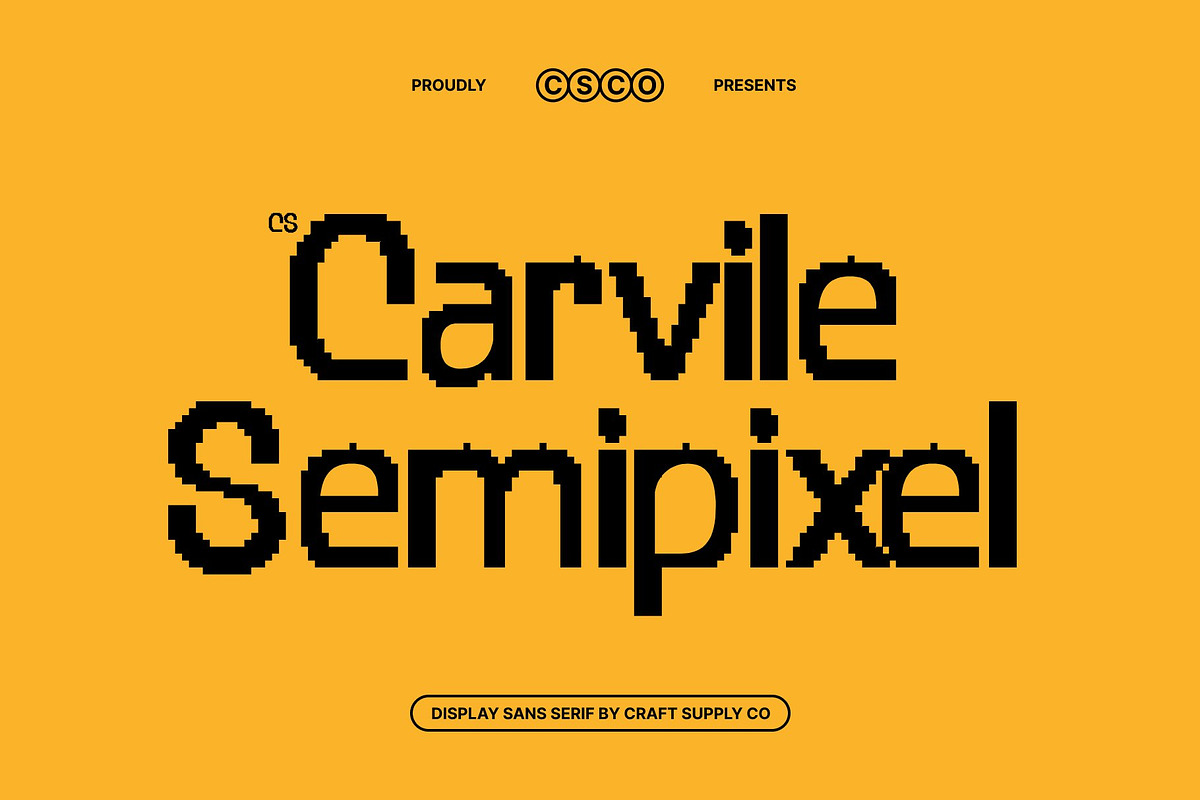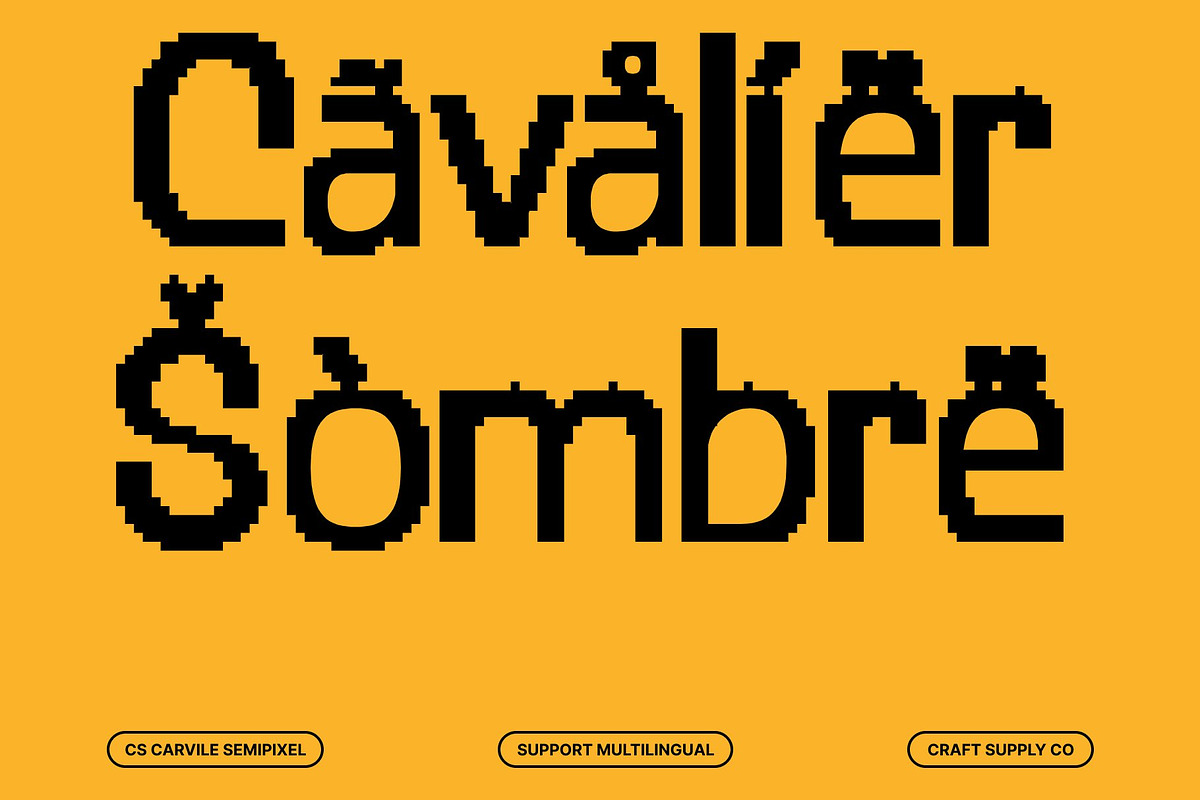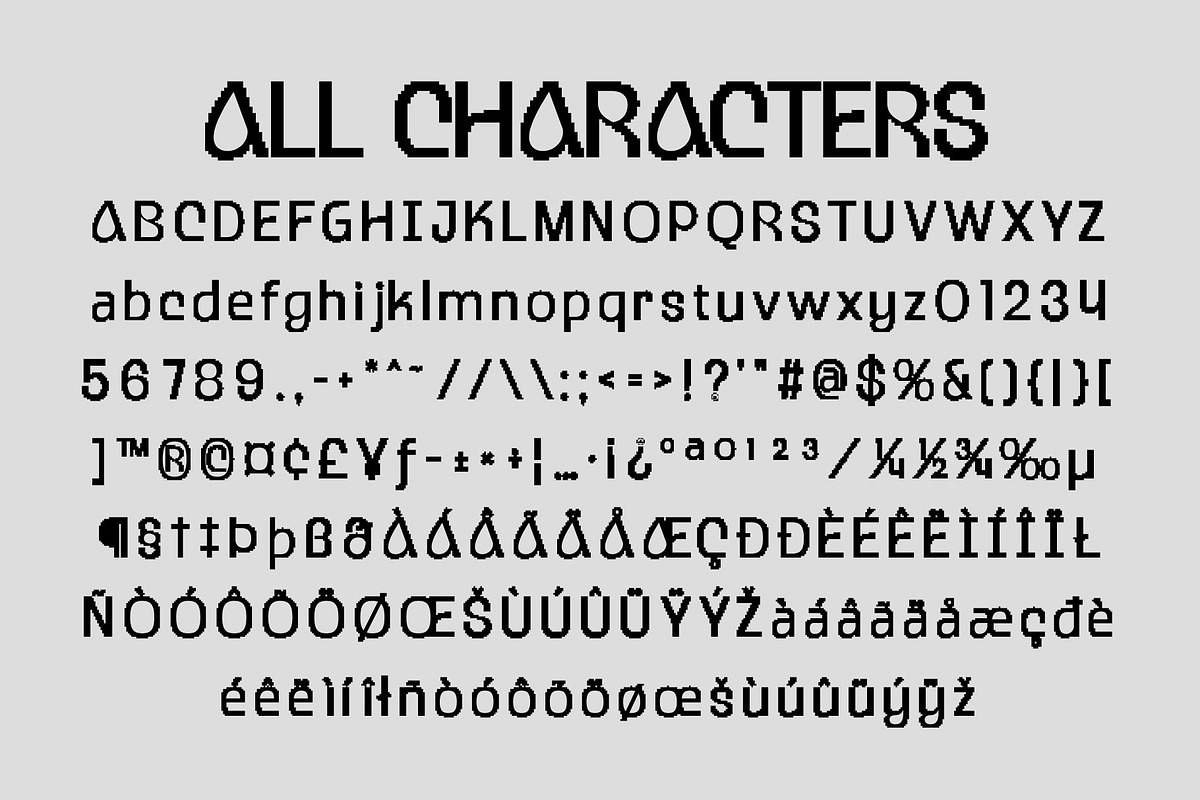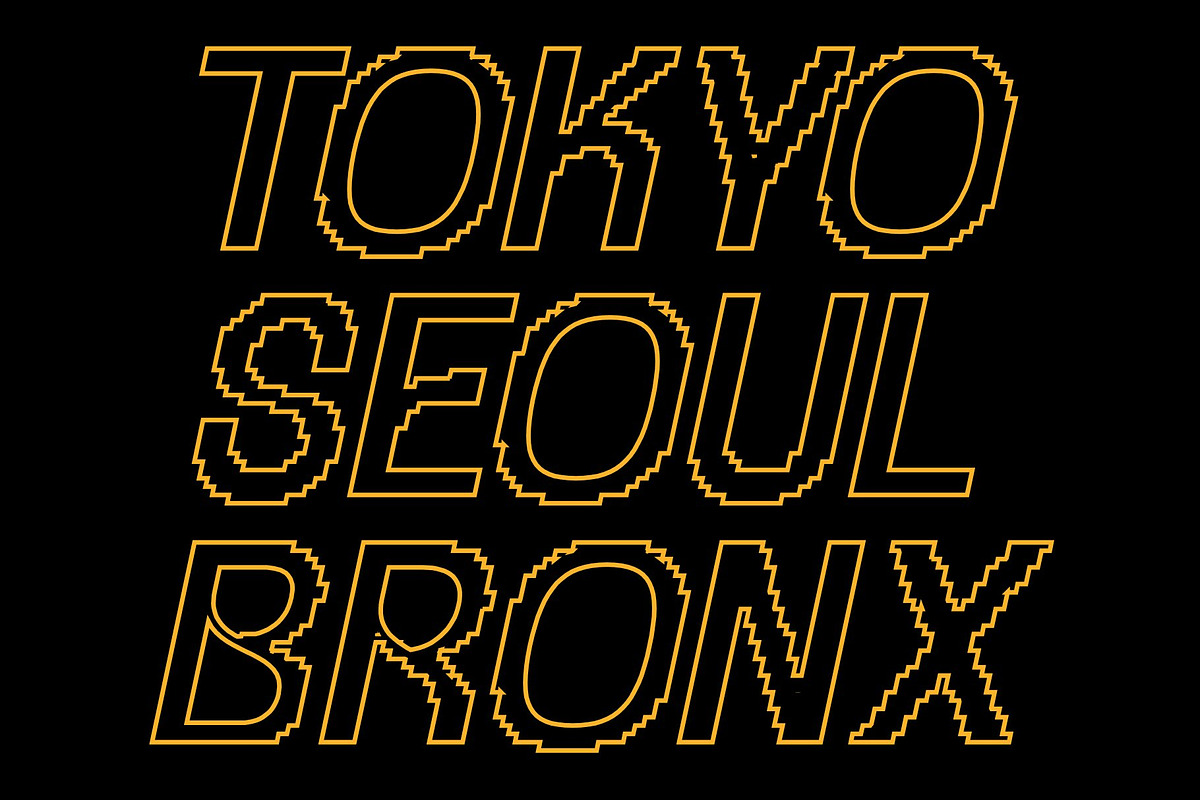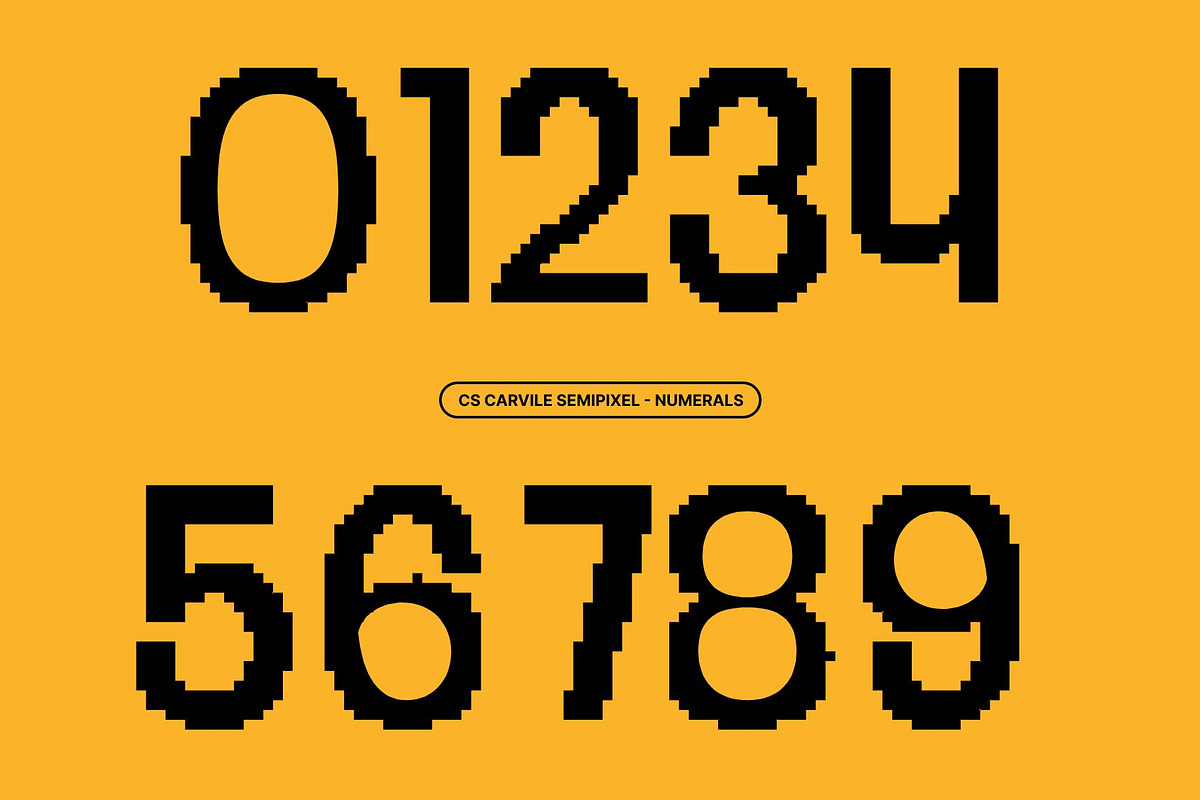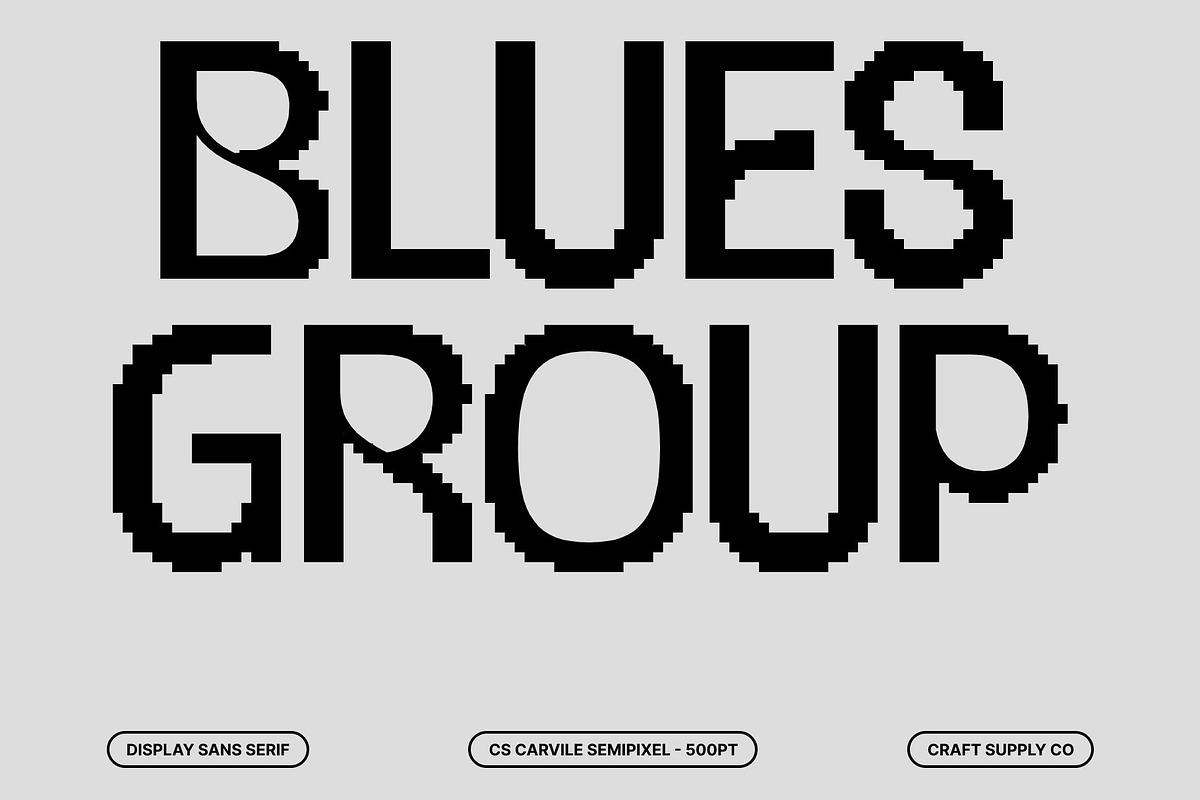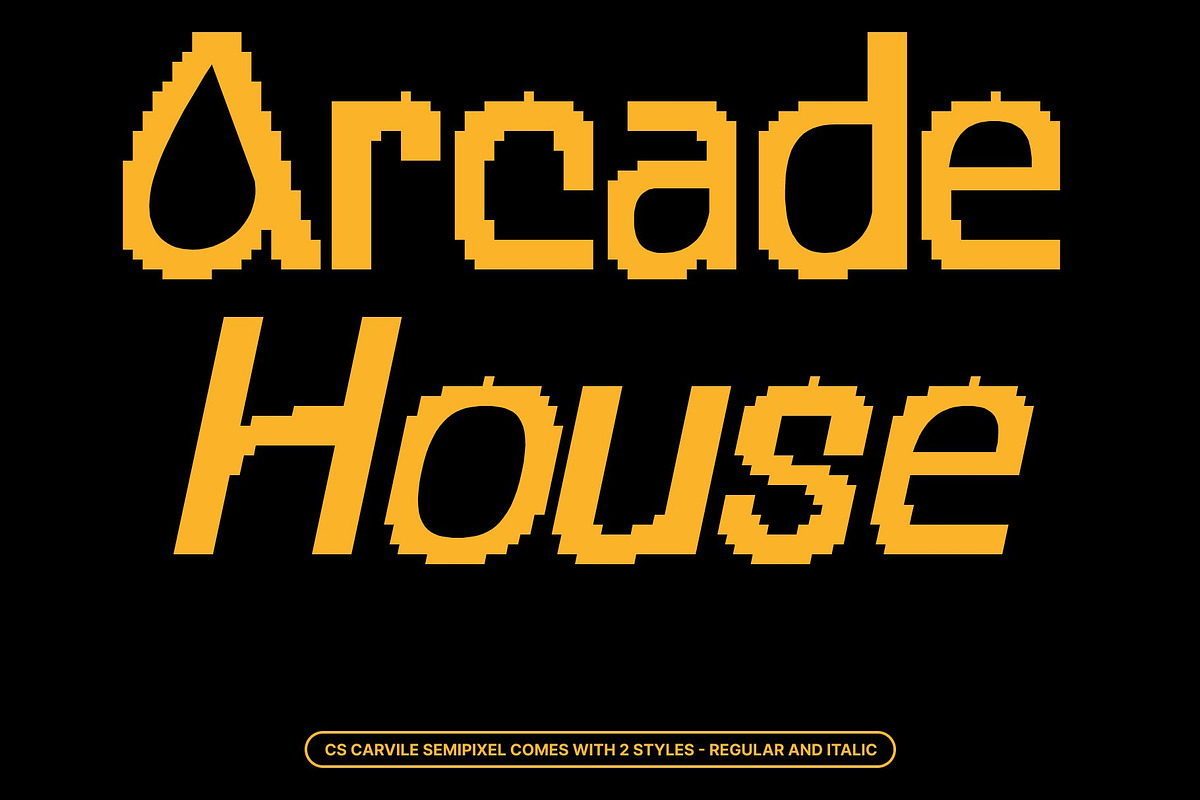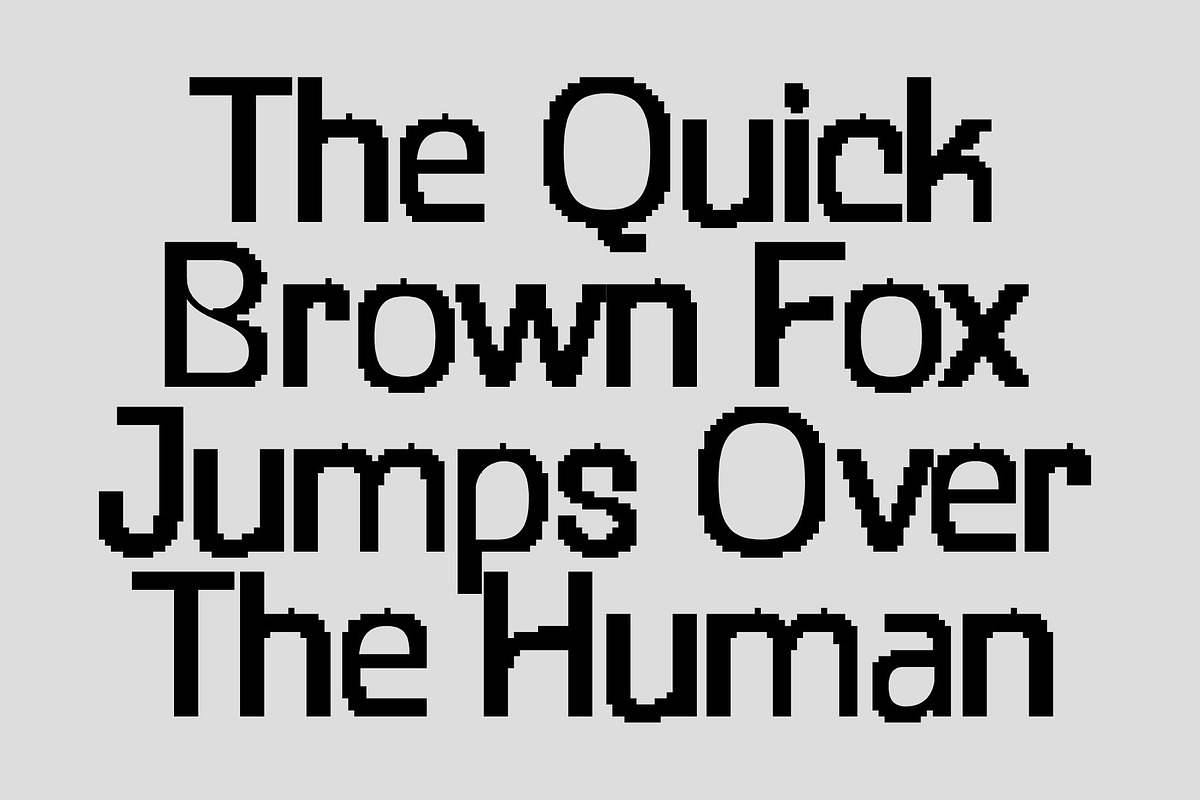
CS Carvile Semipixel
CS Carvile Semipixel – Modern Sans Serif with Smooth, Relaxed Curves
Smooth Modern Shapes with Distinctive Curves This is a modern sans serif font that blends clean geometry with refined, flowing curves to create a fresh and distinctive visual identity. Its smooth letterforms move beyond the rigid feel of traditional minimalist typography, introducing a softer and more expressive personality. Every character feels carefully sculpted, delivering a sleek contemporary appearance that remains visually engaging and effortlessly modern.
Semi Pixel Style with Refined Digital Character Inspired by pixel-based forms, this font incorporates subtle square details combined with smooth modern curves, creating a balanced semi pixel aesthetic. The pixel influence gives the font a digital and futuristic touch, while the softened edges maintain a relaxed and approachable feel.
Professional Tone with Relaxed Elegance Balancing professionalism with warmth, this typeface delivers a polished appearance while maintaining a calm and friendly atmosphere. Its harmonious curves create a sense of comfort and clarity, allowing designs to feel trustworthy, modern, and visually inviting. Whether used in large headlines or supporting layouts, the font maintains strong readability and a smooth visual flow across every composition.
Perfect for Branding, Tech, and Creative Visual Systems This font adapts beautifully to branding, social media graphics, editorial layouts, UI design, startup tech identities, gaming visuals, and modern websites. Its combination of smooth curves, semi pixel details, and contemporary simplicity makes it ideal for logos, posters, digital campaigns, and thoughtful design projects.
CS Carvile Semipixel Regular
CS Carvile Semipixel Italic